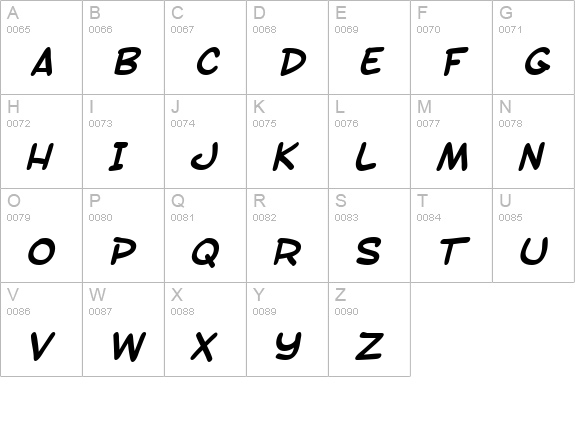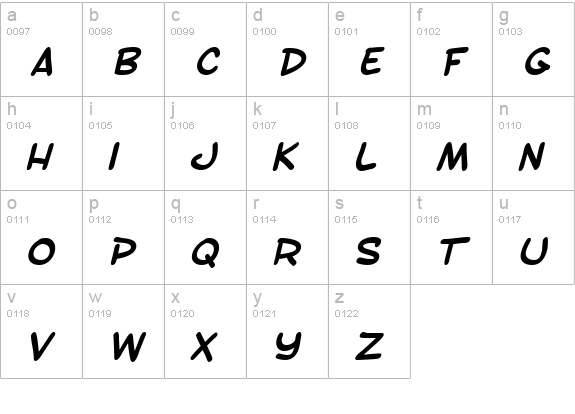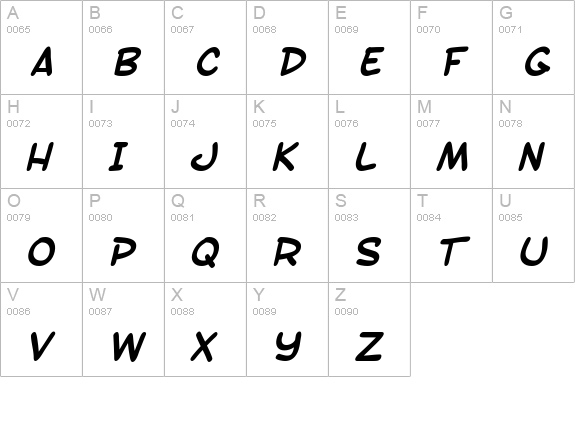
SF Toontime Bold Italic Font Details
SF Toontime Bold Italic is a strong, high-contrast, italic variant in the SF typeface family \xE2\x80\x94 well suited to headlines, attention-grabbing titles, and strong calls-to-action.
SF Toontime Bold Italic is a vibrant and playful font that brings a touch of whimsy to any design project. With its bold and italicized style, this font exudes energy and liveliness, making it perfect for capturing attention and adding a touch of excitement to your designs. The unique combination of boldness and italics creates a dynamic visual impact, allowing your text to stand out and make a statement. Whether you're designing a poster, a logo, or a website, SF Toontime Bold Italic will inject personality and charm into your project. This font is freely available to download at FontsMarket.com, making it easily accessible to designers and creatives alike. By offering this font for free, the creators of SF Toontime Bold Italic have made it possible for everyone to enjoy its playful and captivating style without any financial constraints. So why wait? Download SF Toontime Bold Italic today and let your creativity soar. Whether you're designing for a children's book, a party invitation, or anything in between, this font will add a touch of fun and excitement to your designs. Embrace the free-spirited nature of SF Toontime Bold Italic and bring your ideas to life with a font that truly stands out.